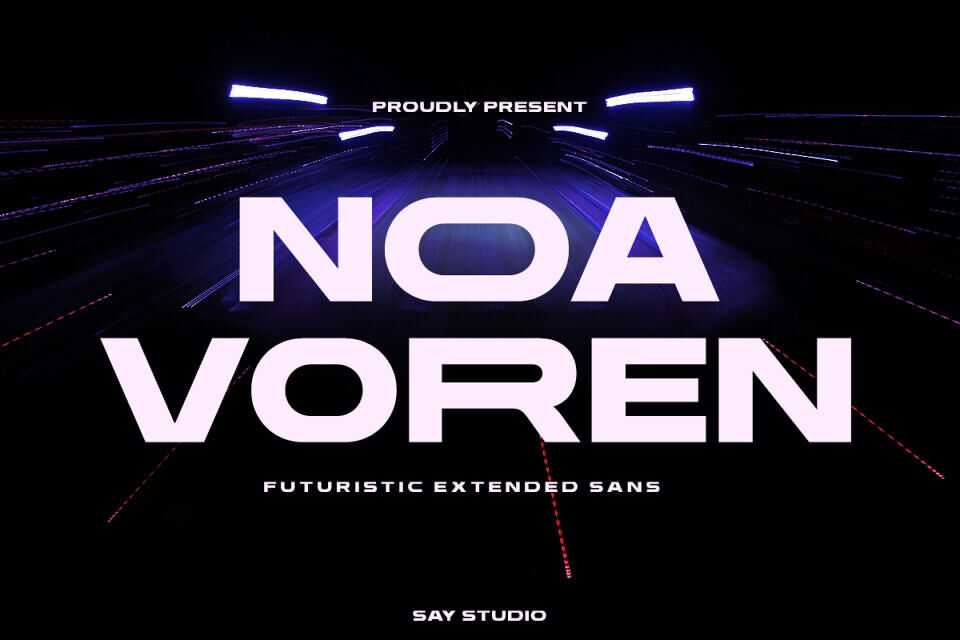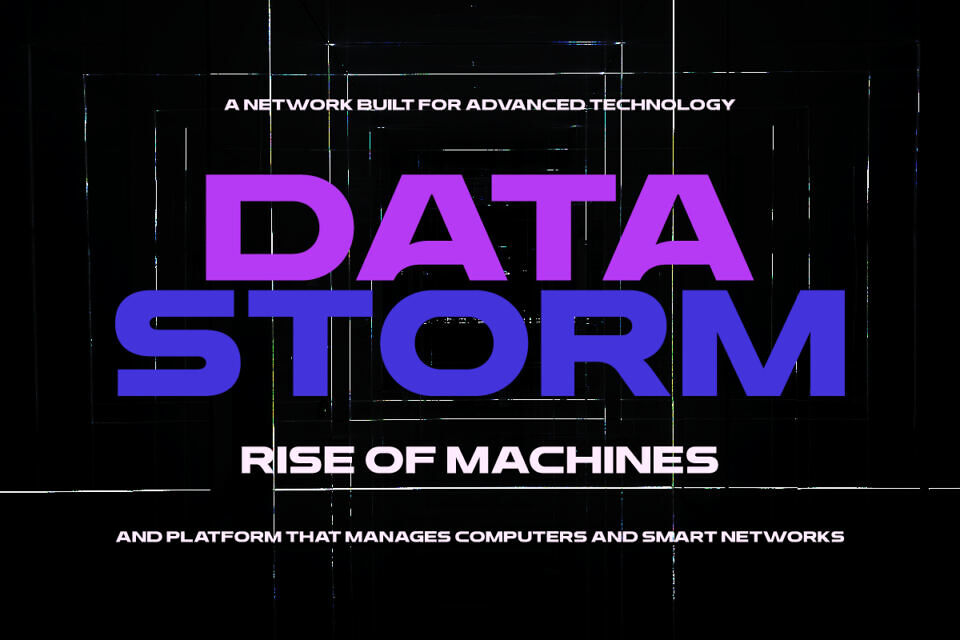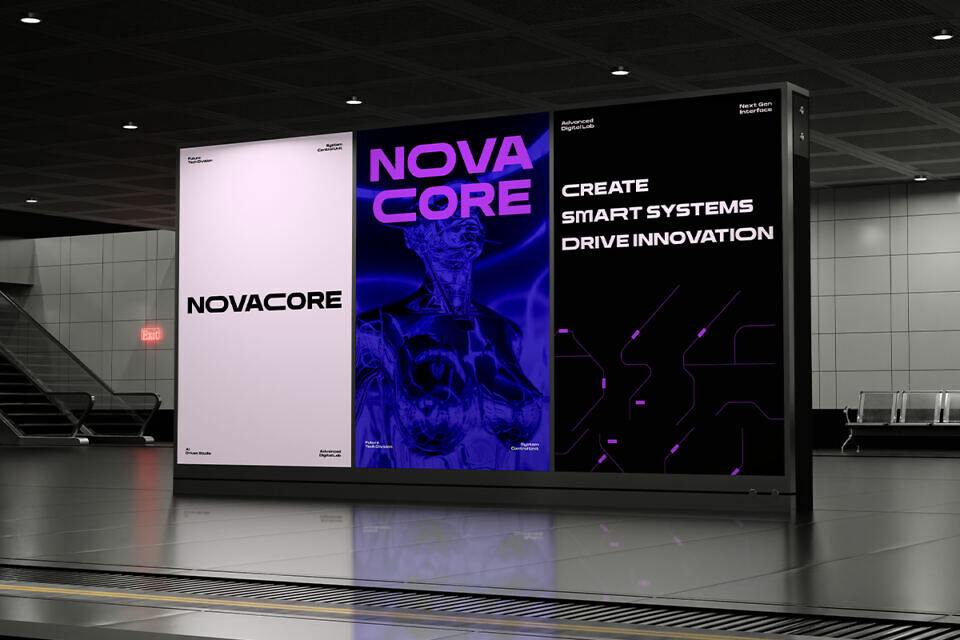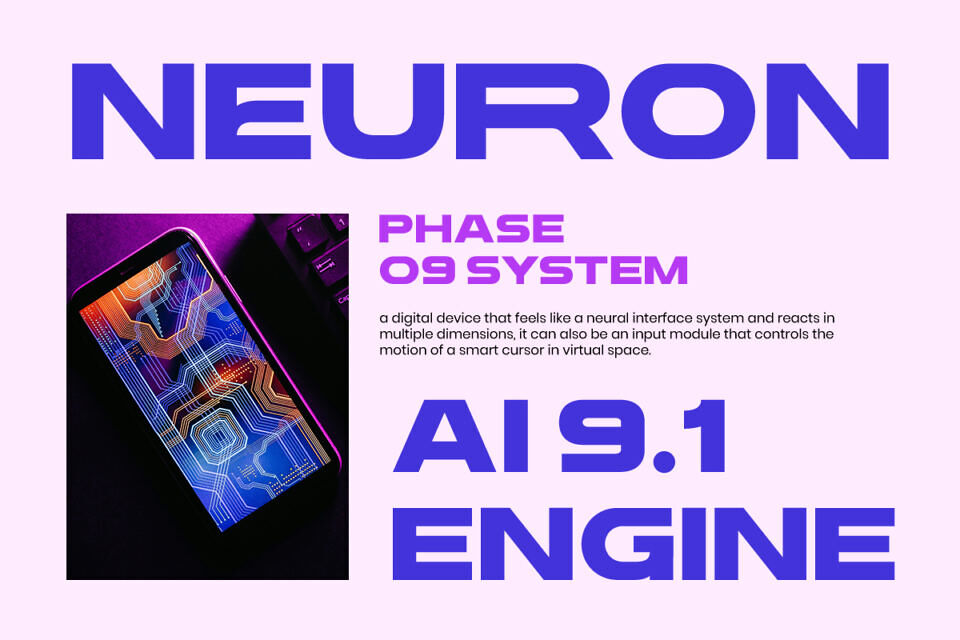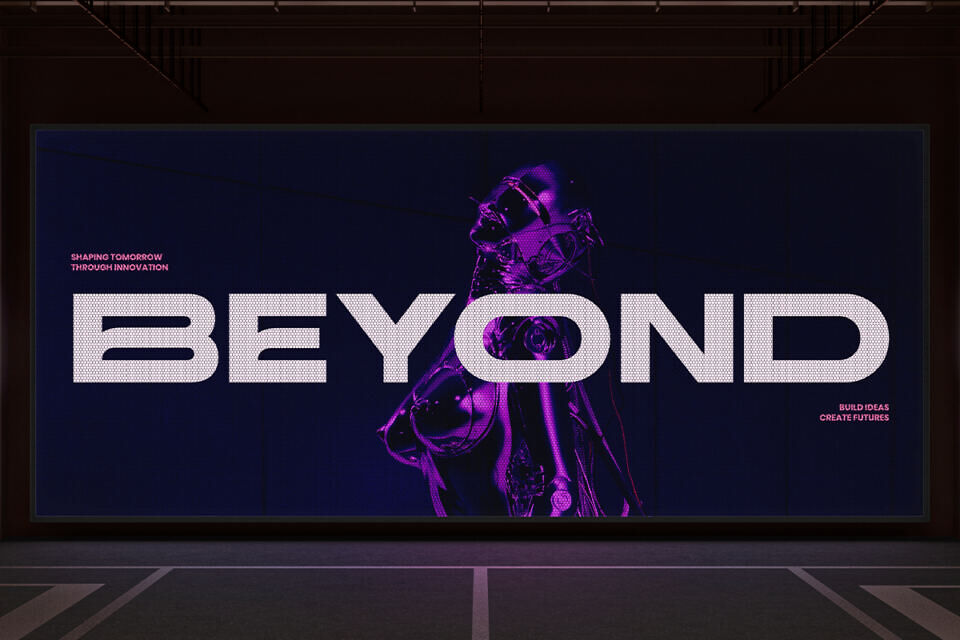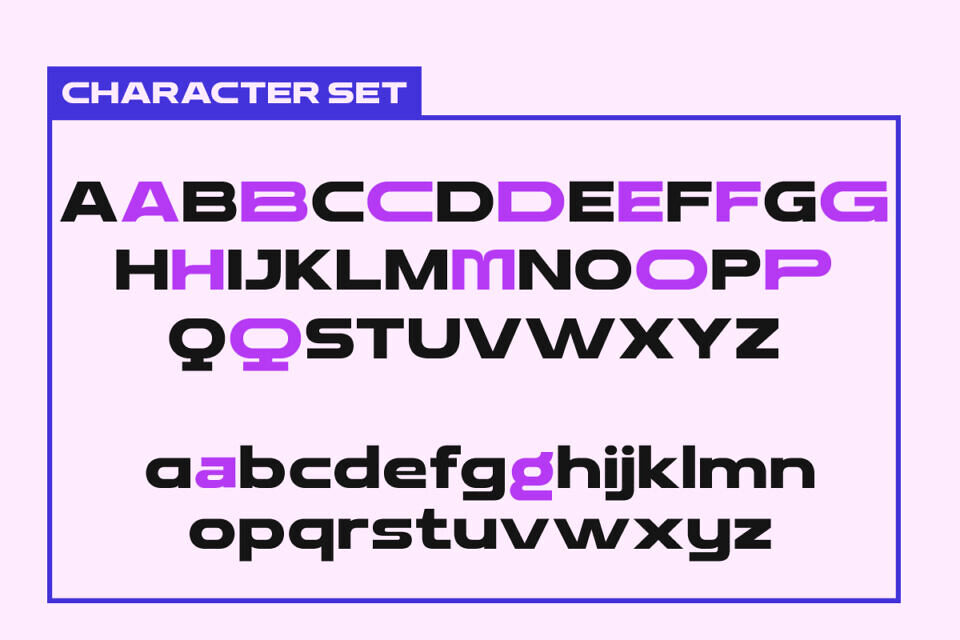
Noa Voren Font
Noa Voren is a futuristic extended sans serif designed to deliver bold visual impact in modern digital landscapes. With its wide proportions, clean geometry, and sharp structure, this typeface captures the essence of speed, technology, and innovation.
Inspired by sci-fi aesthetics, cyberpunk visuals, and high-tech branding, Noa Voren excels in projects that demand attention. Whether you’re creating gaming interfaces, movie titles, tech branding, or futuristic posters, this font provides a strong, cinematic presence that stands out effortlessly across both digital and print media.